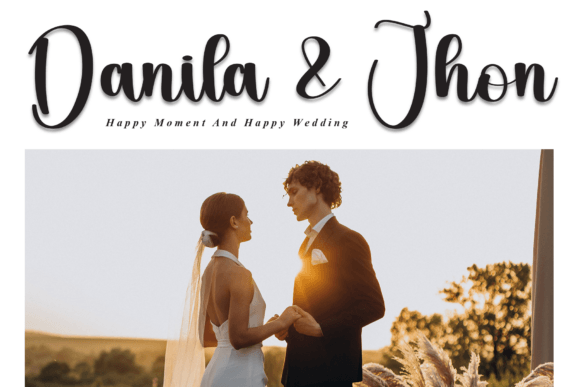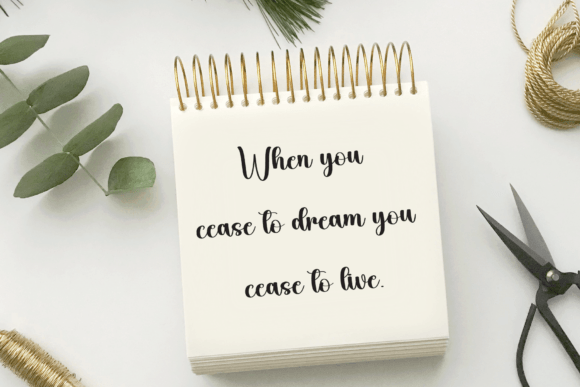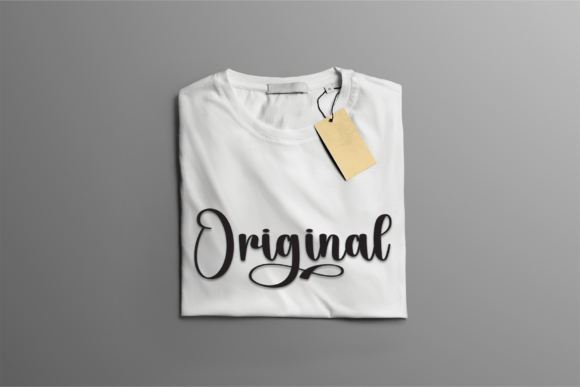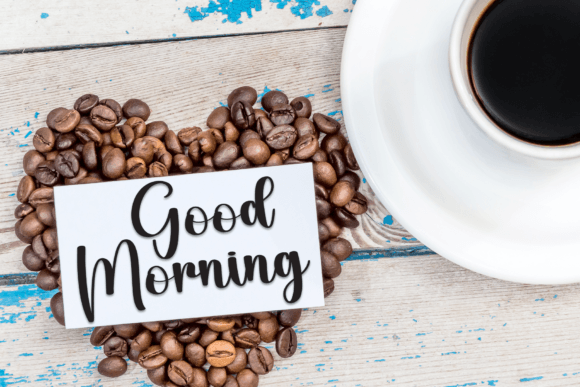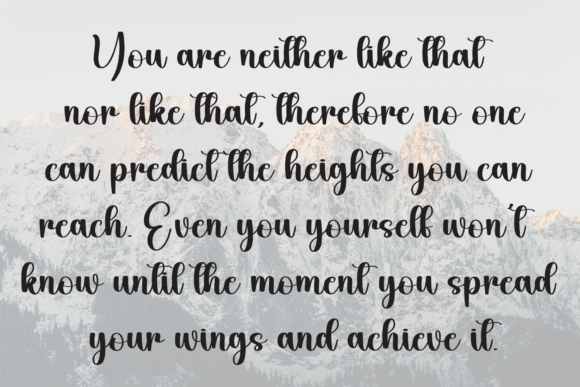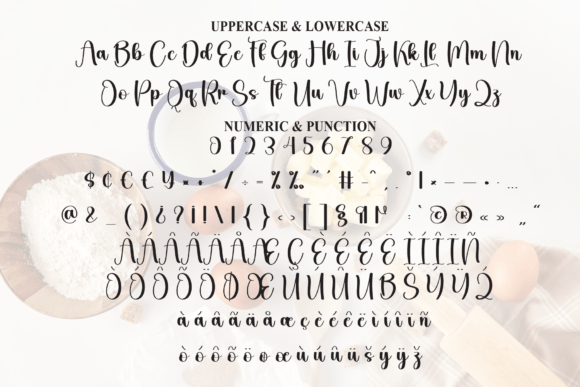
Adding a Pinch of Whimsy to Your Designs
Who among us hasn’t spent hours pouring over design ideas, trying to perfect that special something that will make our creations truly stand out? The brainstorming sessions, the endless iterations, and the moments of pure joy when it all comes together – these are the moments that make being a designer so rewarding.
And then, there’s the font. The perfect font can make all the difference between a design that’s just good, and one that’s truly exceptional. Enter the delightful Butter Sugar Font, a charming, handwritten display font that’s guaranteed to add a dash of sweetness to your projects. Whether you’re crafting wedding invitations, designing greeting cards, or simply looking for a typographic ally that will bring a smile to your designs, this font is the perfect choice.
With its playful and engaging style, the Butter Sugar Font is a valuable addition to any designer’s toolkit, infusing your creations with an irresistible charm that’s sure to delight.
Butter Sugar Font Key Features
- Font Family: A modern script font with a touch of elegance and sophistication.
- Size and Resolution: Designed to be used at large sizes (36pt and above) for optimal legibility and visual impact, with a recommended resolution of 300 DPI for print materials.
- Unique Characteristics: Features a beautiful, handwritten feel with subtle flourishes and connections between letters, making it perfect for adding a personal touch to invitations, logos, and other design elements.
- Kerning and Ligatures: Includes advanced kerning and ligature pairs to ensure smooth text flow and a professional appearance.
Designer Review: Butter Sugar Font
When I first laid eyes on the Butter Sugar Font, I was immediately drawn to its playful, whimsical aesthetic ✨. The font’s soft, rounded edges and pastel color palette evoke a sense of nostalgia and warmth, making it perfect for designing brand identities for bakeries, cafes, or other food-related businesses. The font’s versatility also makes it suitable for a wide range of applications, from social media graphics to advertising materials.
- The font’s unique, hand-drawn feel adds a touch of personality to any design ✨.
- The soft, pastel colors create a soothing and calming atmosphere, perfect for designs that require a gentle tone.
- The font’s flexibility makes it easy to use in a variety of design contexts.
- The font may not be suitable for designs that require a strong, bold, or modern aesthetic ⚠️.
- The soft edges may make it difficult to read in certain font sizes or resolutions.
- The font’s limited character set may require additional design work to create custom characters.
Overall, the Butter Sugar Font is a charming and versatile font that can add a touch of whimsy to any design. While it may not be suitable for every design project, its unique aesthetic and flexibility make it a great choice for designers looking to create playful and engaging designs.
The Butter Sugar Font is perfect for:
- Feminine-themed projects (wedding invitations, baby showers, etc.)
- Professional projects (